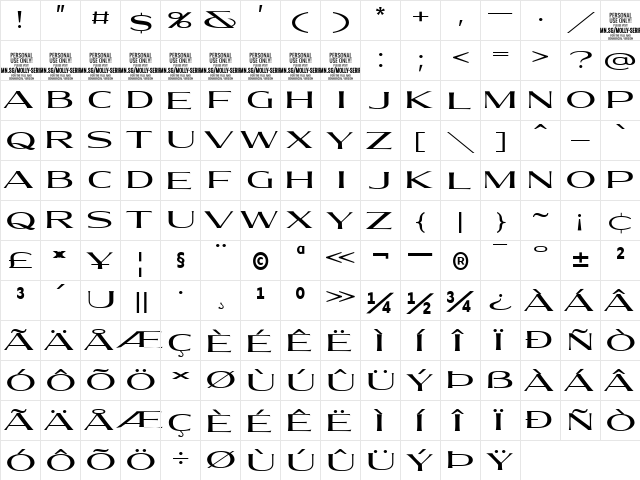
Molly Serif XE PERSONAL Medium
| Foundry | Mans Greback |
| Designer | Mans Greback |
Design Context for Molly Serif XE PERSONAL Typeface
Molly Serif XE PERSONAL brings classic typographic sensibility to the table — its serifs and measured letterforms reflect centuries of print heritage.